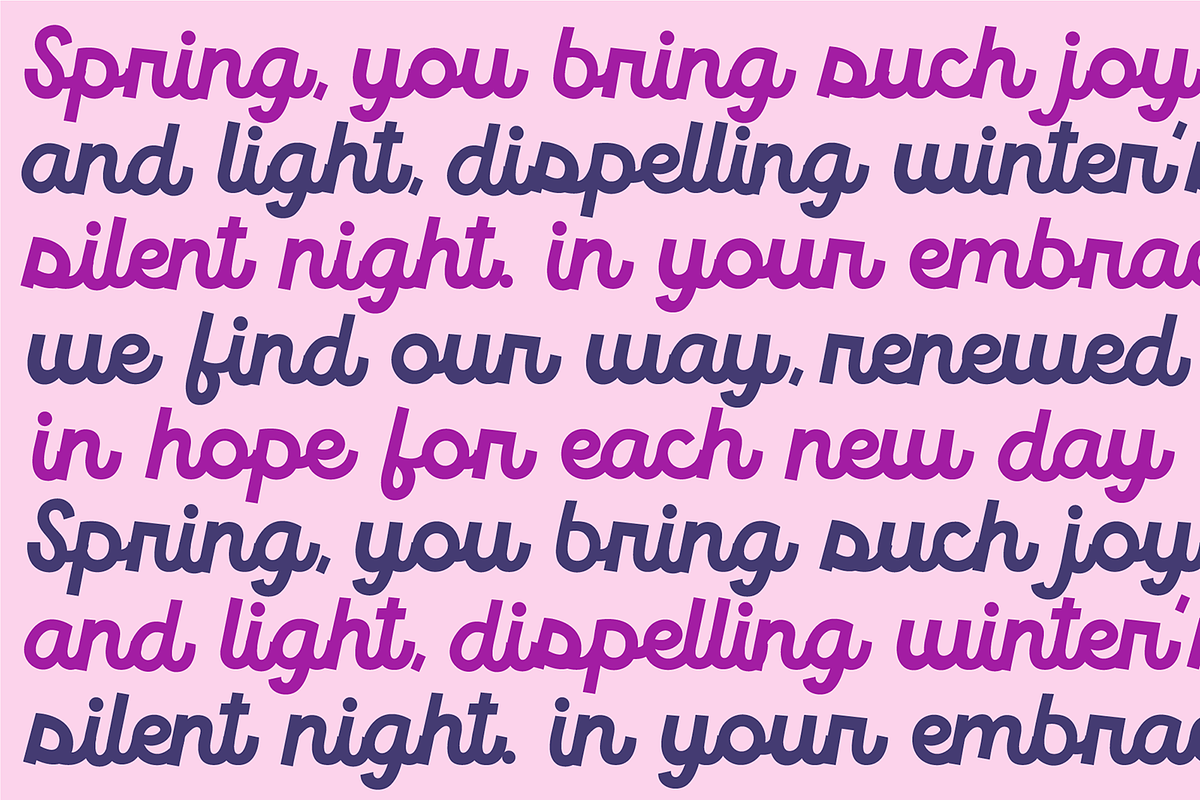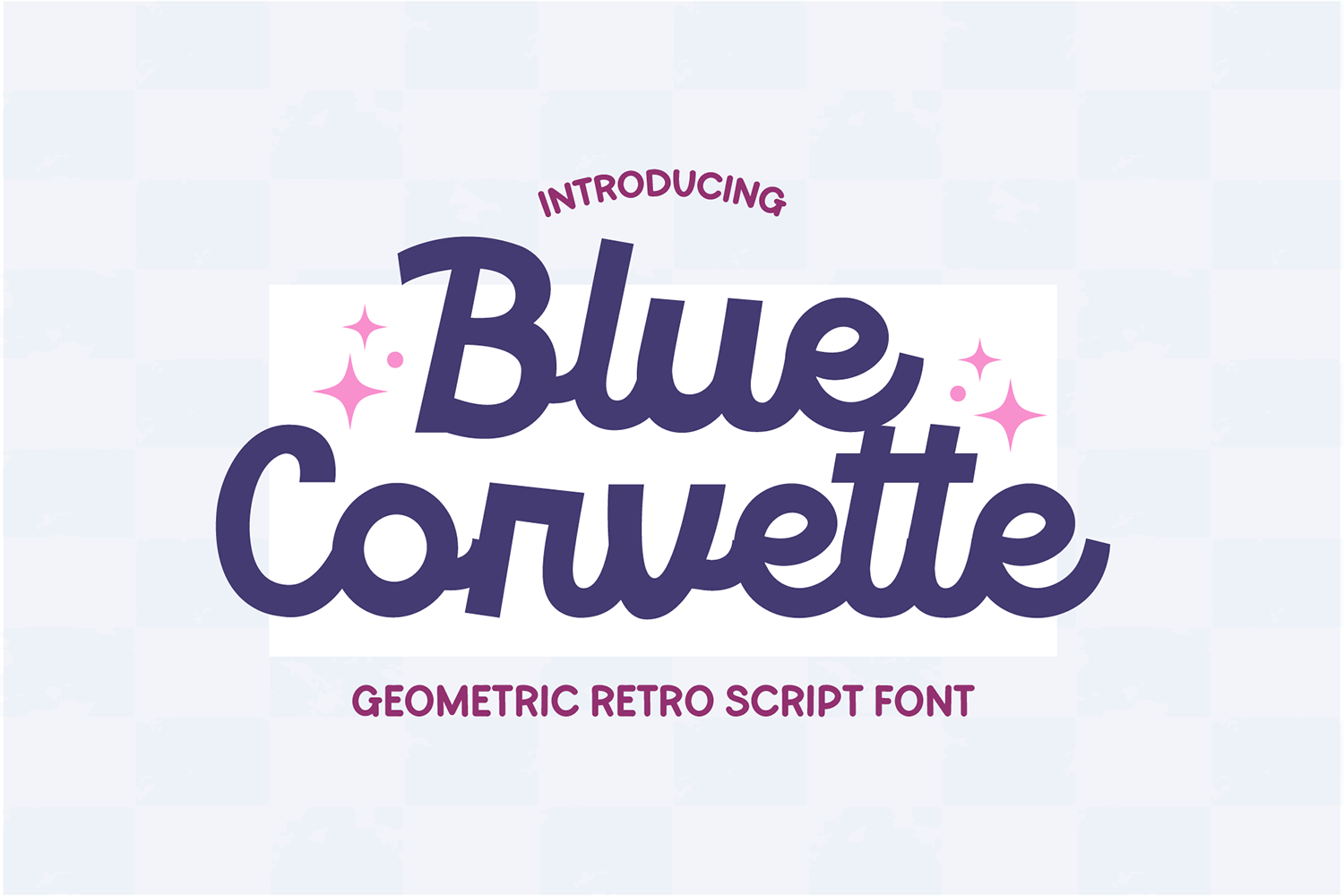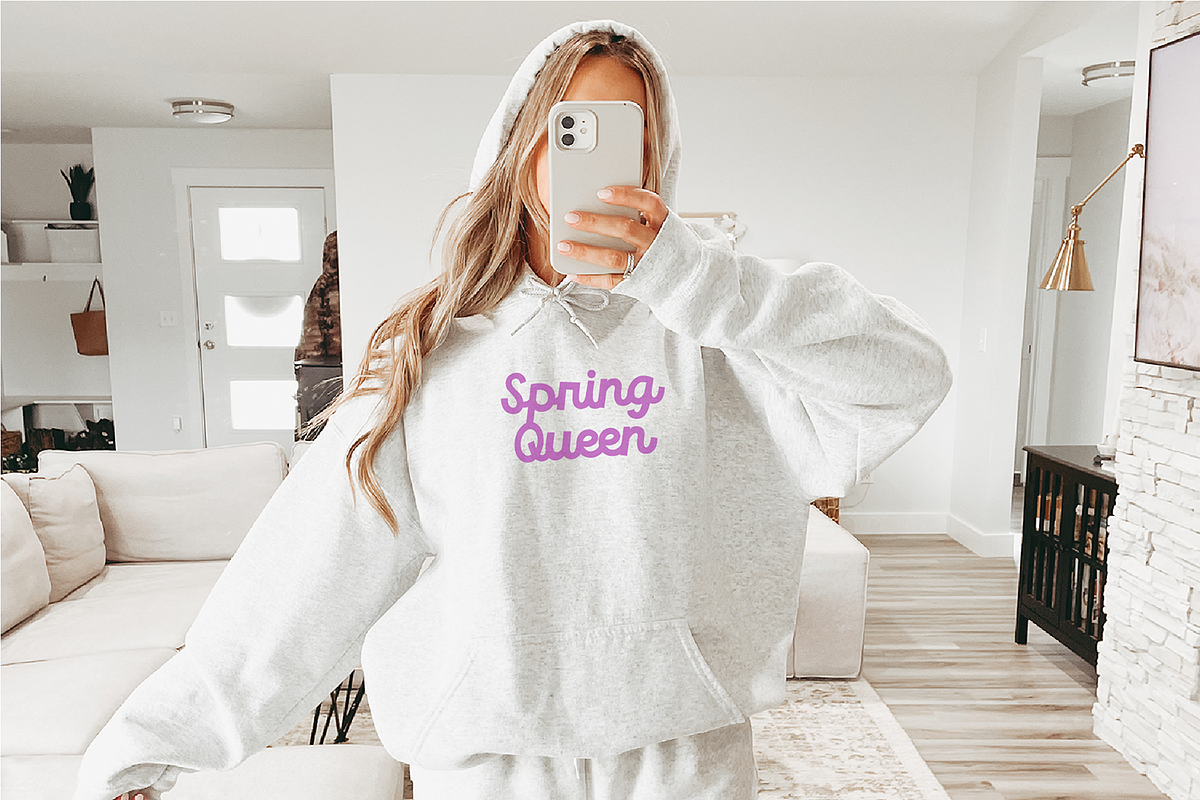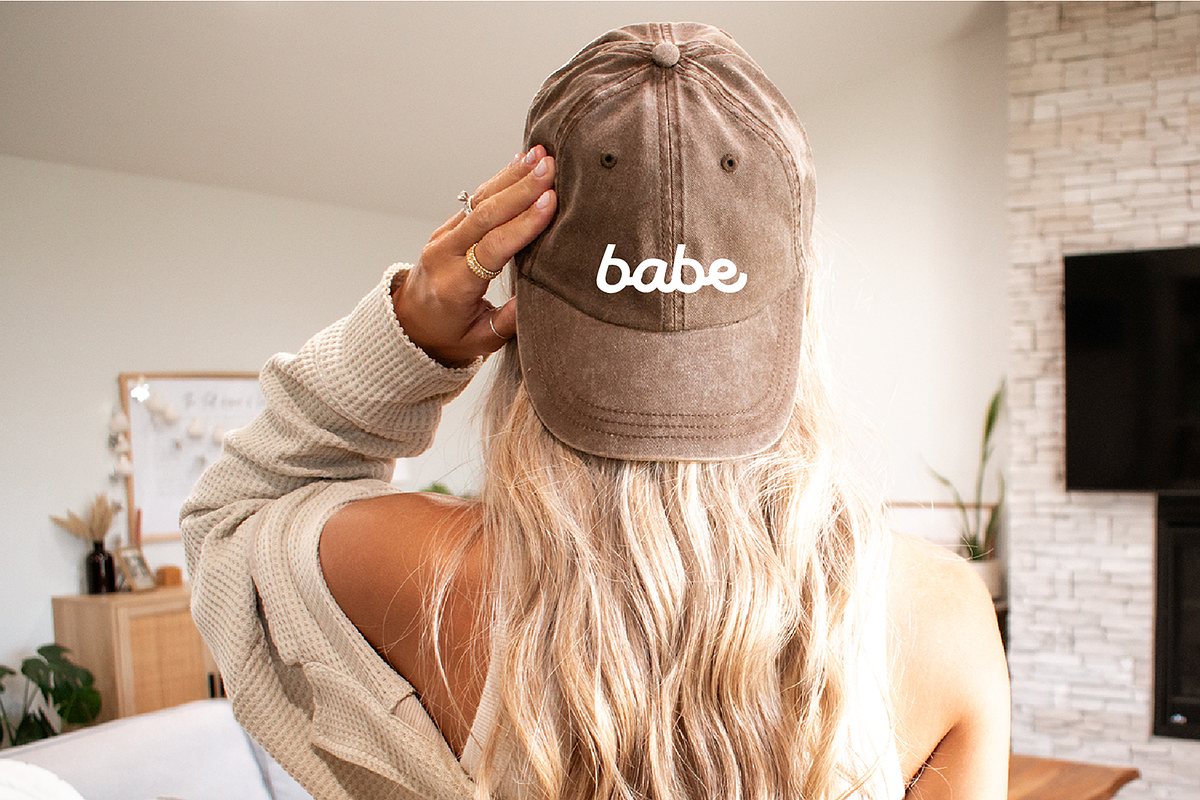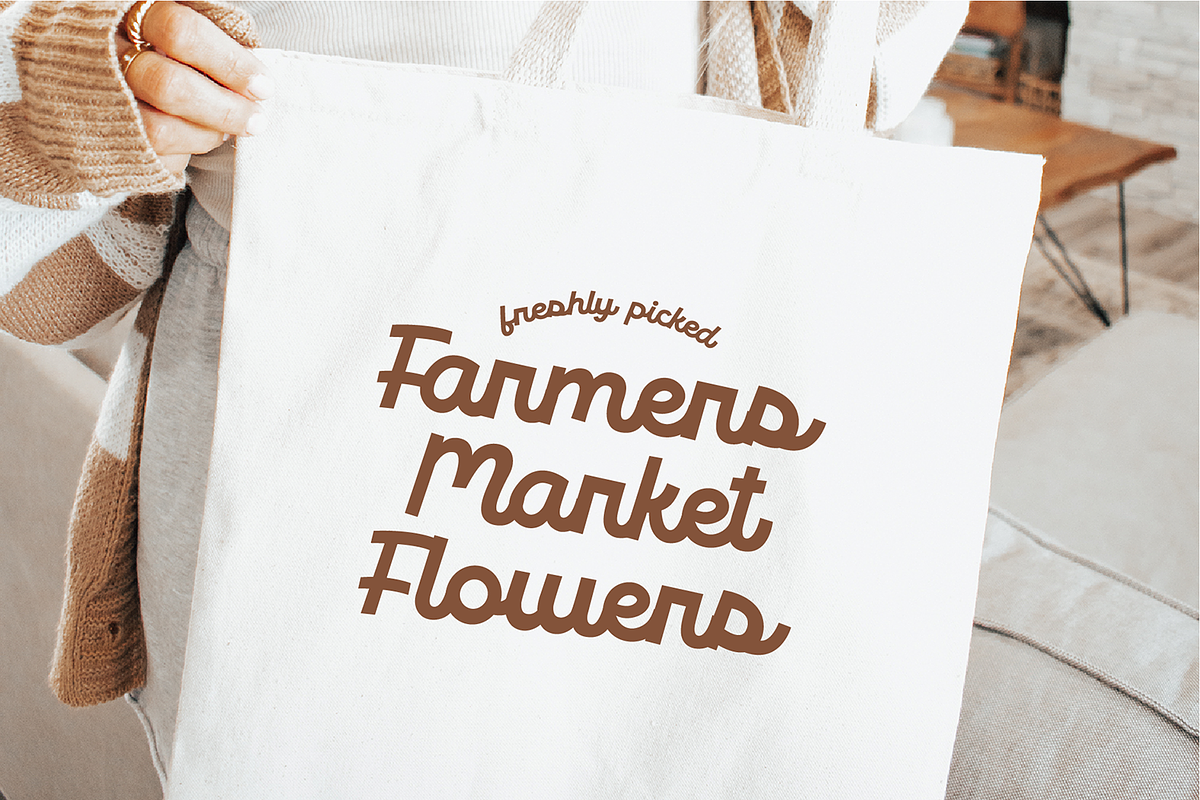
BLUE CORVETTE Monoline Script Font
"Blue Corvette" a chunky retro monoline script font.
This font is a trendy retro display font that is perfect for social media or crafty projects. Use if for branding, crafts for decor, invitations, and more! Includes intl characters.